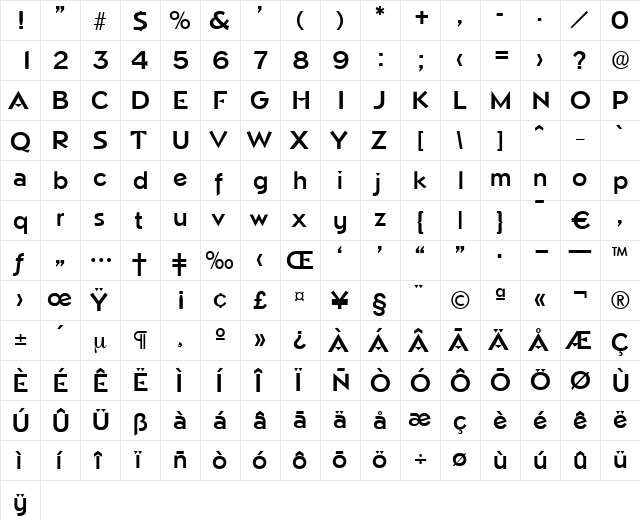
Napoli-DemiBold Regular Font Preview
Napoli-DemiBold Regular
Design Context for Napoli-DemiBold Typeface
Napoli-DemiBold takes a measured approach to typography — its balanced proportions and neutral character make it a reliable workhorse for both digital and print work. The heavy weight commands attention and anchors typographic hierarchies.